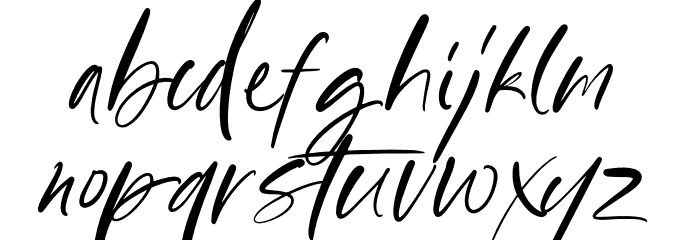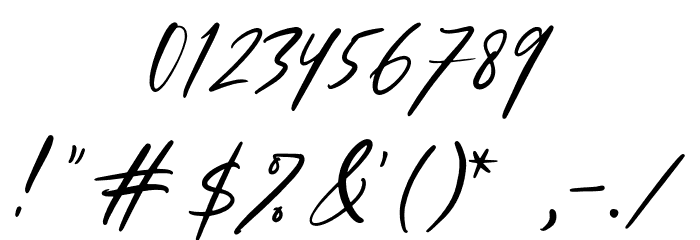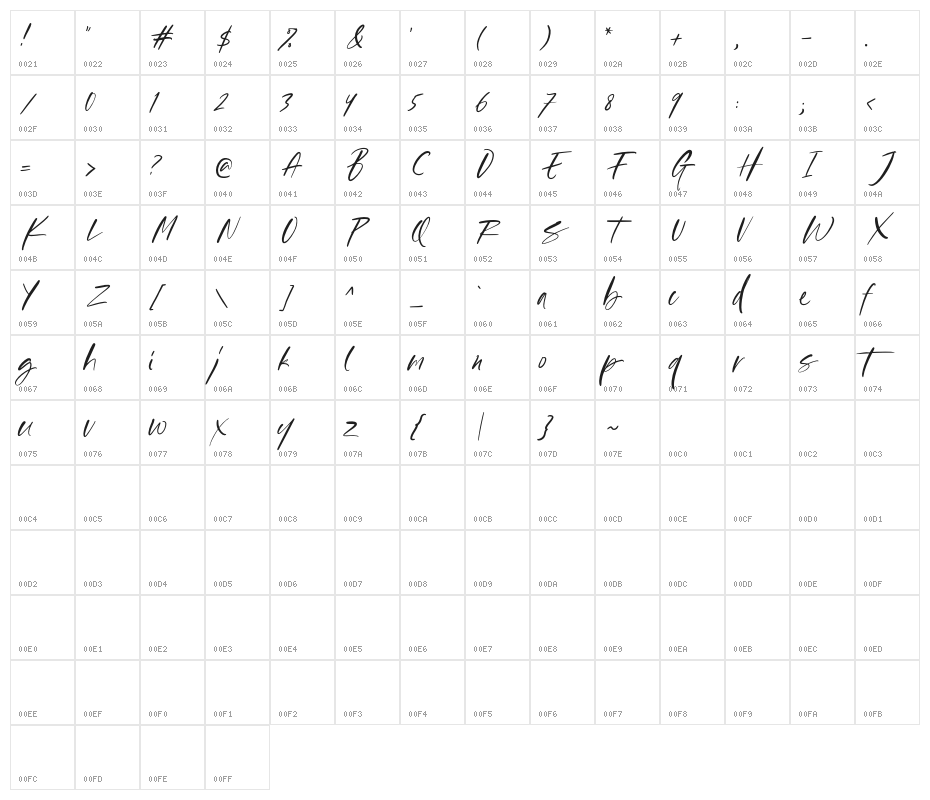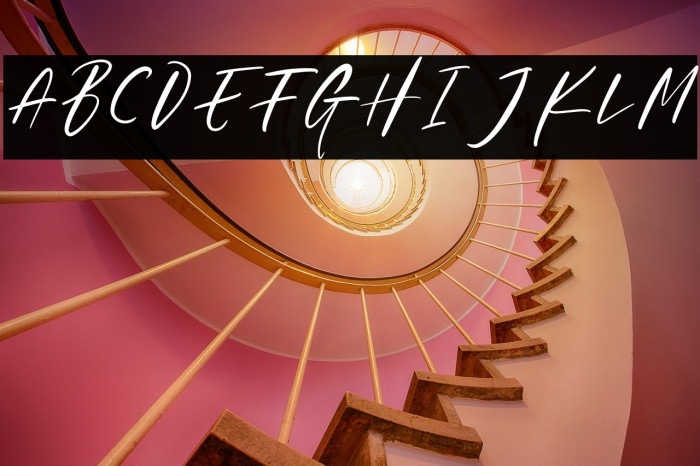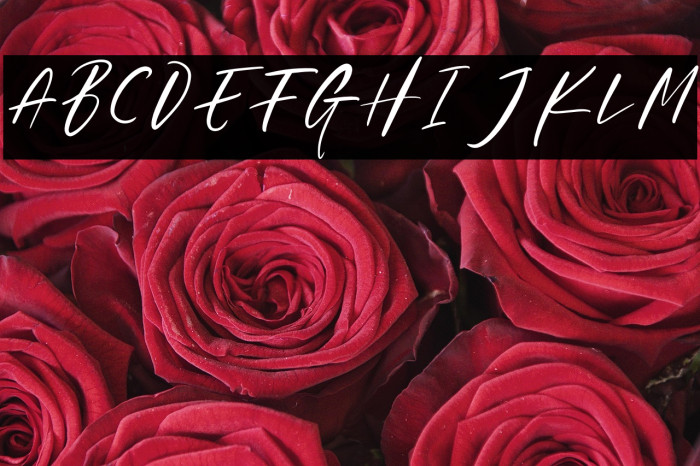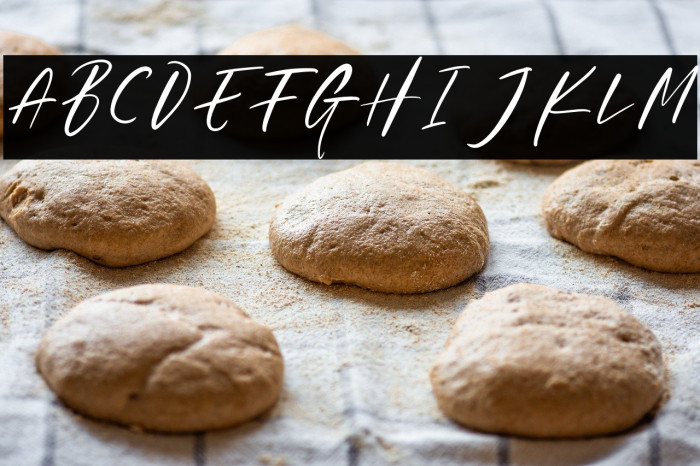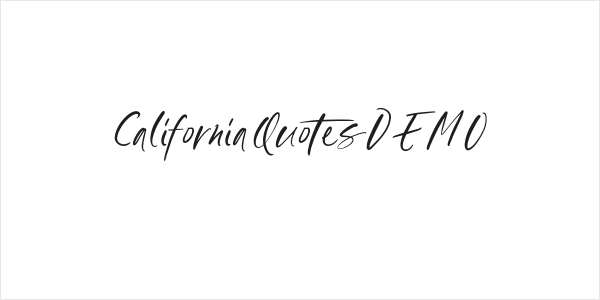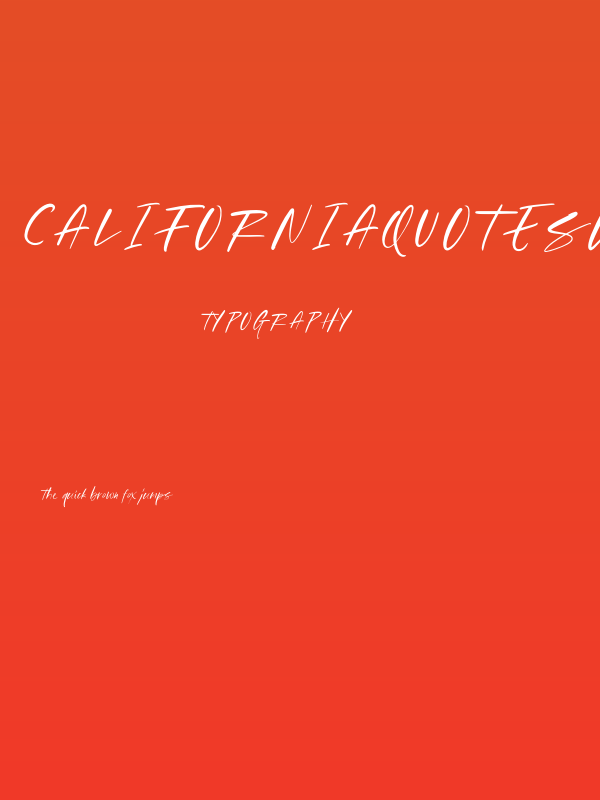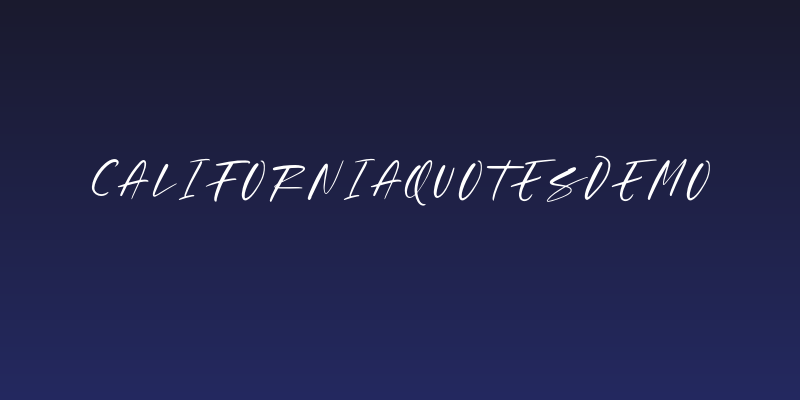
CaliforniaQuotesDEMO Font
This font exudes a casual, handwritten style with a modern flair. The letters are slightly slanted, giving a sense of motion and fluidity. The strokes vary in thickness, adding a dynamic and lively feel to the text. The uppercase letters are bold and prominent, while the lowercase letters maintain a consistent flow, enhancing readability. The numbers and special characters are crafted with the same attention to detail, ensuring a cohesive look across all elements. This font is perfect for projects that require a personal touch, such as invitations, greeting cards, or branding materials.
A modern, handwritten font with dynamic strokes and a casual style.
- Font: CaliforniaQuotesDEMO
- Proposed Projects: Ideal for invitations, greeting cards, branding, and personal projects.
- Category: Handwritten
- Use Case: Headlines, Logos, Invitations